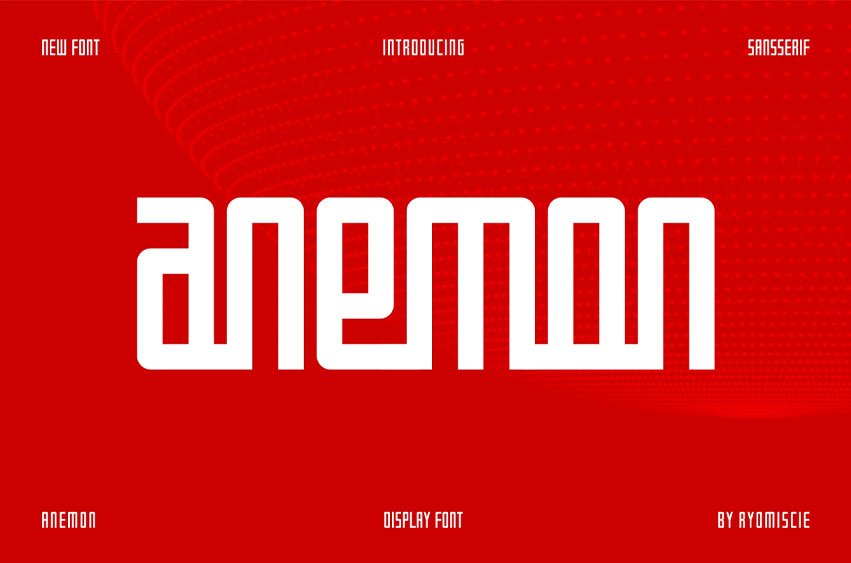
Anemon Font Modern Font is a bold and authentic display font. The font is suitable for any branding project, like logos, esport, and many more.
outstanding in a wide range of contexts.